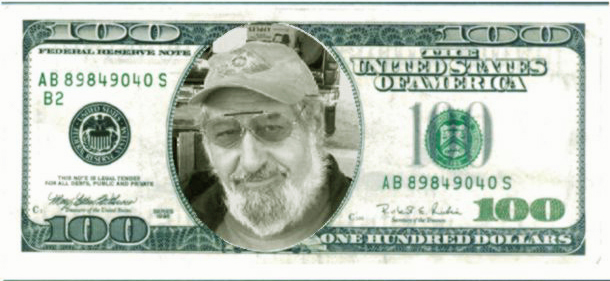
Well, sort of. The face of the characters on the currency is the product of the engraver's hand. The typeface found at the referenced web site is most likely extrapolation of the characters seen on the bills.
There's lots of faces that have a similar history wherein specific words exist without an actual full character set existing. There's a font that extrapolates the famous 'Walt Disney' signature, which isn't Walt Disney's signature at all by the way. Mad magazine's title and lots of movie and TC series titles have had typefaces extrapolated from them. Most of them are pretty bad. What looks good in a specific word or two in a specific context generally doesn't lend itself well to an entire character set.
That's why there's
sign writers and then there's type setters. Closely related but still a big difference. They work burning different ends of the same candle. A
sign writer makes up an ad hoc character set appropriate to the task while a type setter chooses an existing type face appropriate to the task. While the
sign writer has only its skill to keep things on a typographical even keel, the type setter has the physical limitations of the type which dictate the most of the rules. It's why business cards and other printed matter designed by a
sign writer usually looks like something that fell of the side of a circus wagon.